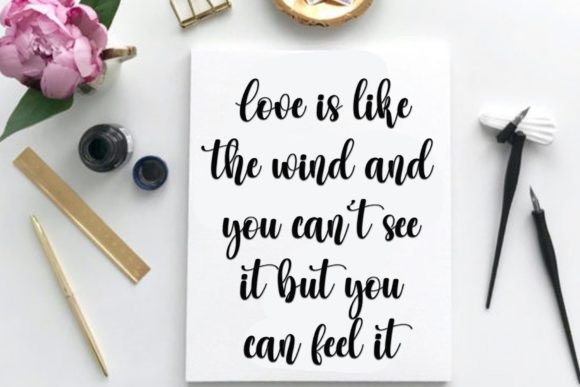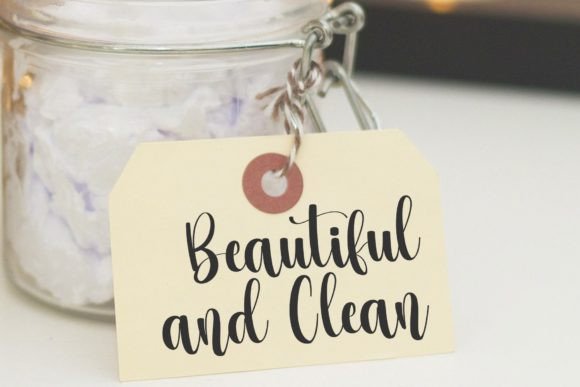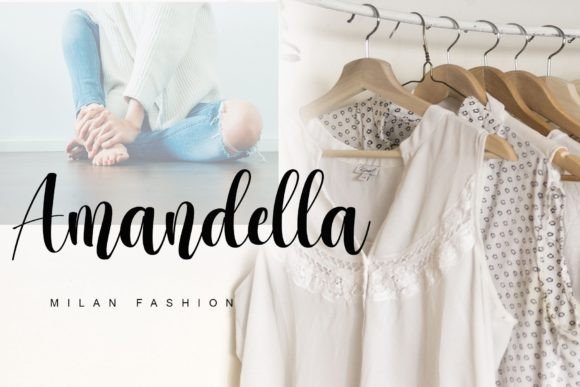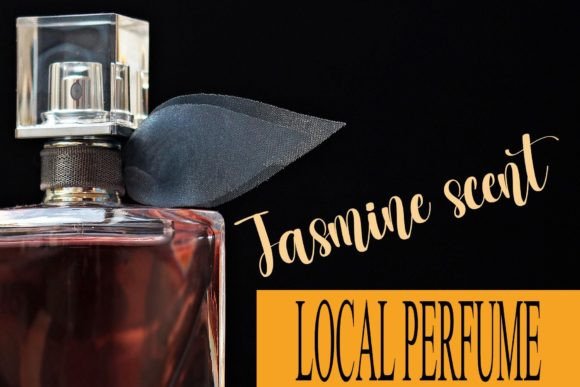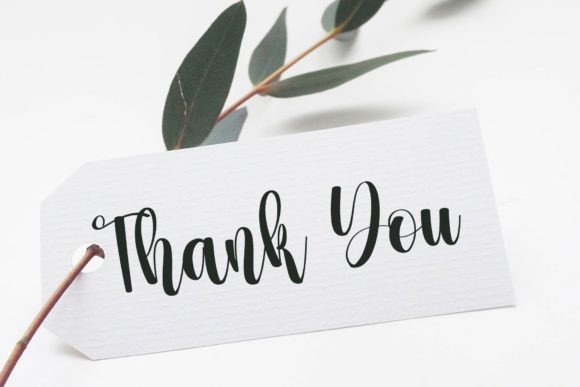
The Elegance of Ashtray Font: A Designer’s Delight
I still remember the project that led me to discover the beautiful Ashtray font. I was working on a branding project for a luxury spa, and I was struggling to find the perfect font to convey a sense of serenity and sophistication. The client was particular about the aesthetic, and I knew I had to nail it. That’s when I stumbled upon Ashtray, and it instantly became my go-to font. In this article, I’ll share my experience with Ashtray, its features, and how to make the most of it in your designs.
An Honest Review of Ashtray Font
What I Love About Ashtray ✨
• 💫 Delicate and elegant handwritten style that adds a touch of sophistication to any design
• ✅ Well-balanced characters that make it easy to read and understand
• 🌈 Versatile font that matches a wide range of designs, from minimalist to luxurious
• 🎨 Beautiful swashes and stylistic alternates that add a creative twist to your text
• ⚠️ Limited use of uppercase letters, which might require creative workarounds
• 🤔 Some characters may appear too delicate for certain design contexts, requiring adjustments
The Backstory of Ashtray Font
Ashtray font was designed with the intention of creating a delicate, elegant, and flowing handwritten font. The designer aimed to craft a font that would be versatile and match a wide range of designs, from minimalist to luxurious. The result is a beautiful font that adds a touch of sophistication to any design.
Font Name Ashtray Font
Author Plafont store
Q: What is the best use for Ashtray font?
A: Ashtray font is ideal for designs that require a touch of elegance and sophistication, such as luxury branding, wedding invitations, and high-end advertising.
Q: Is Ashtray font suitable for body text?
A: While Ashtray font is beautiful, it may not be the best choice for body text due to its delicate nature. It’s better suited for headings, titles, and short paragraphs.